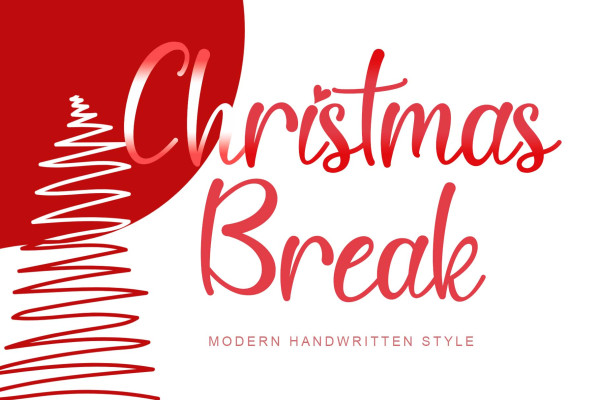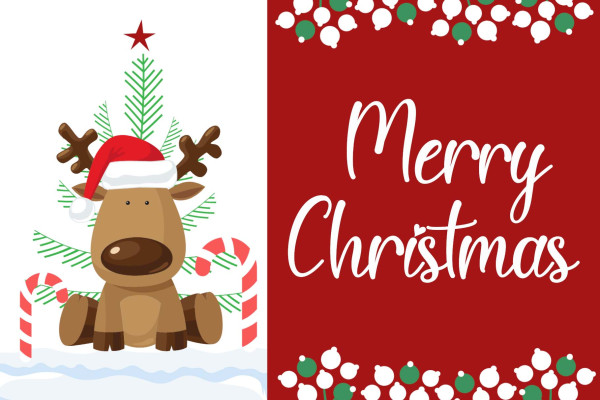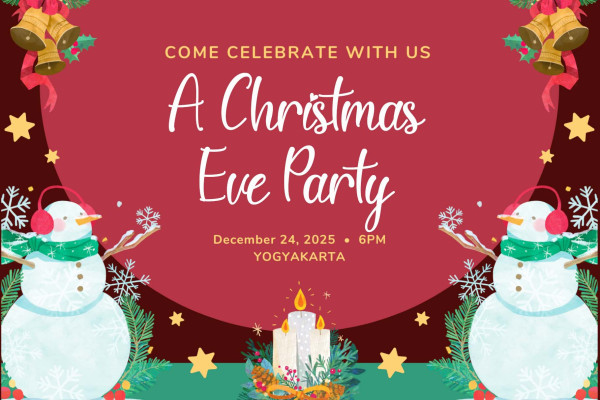
Christmas Break Font
Christmas Break Font is a beautiful handwritten font. This font is perfect for weddings, Christmas, stickers, banners, posters, photography, engagements, and more. Equipped with uppercase, lowercase, numerals, punctuation, swash, titling, and multilingual support